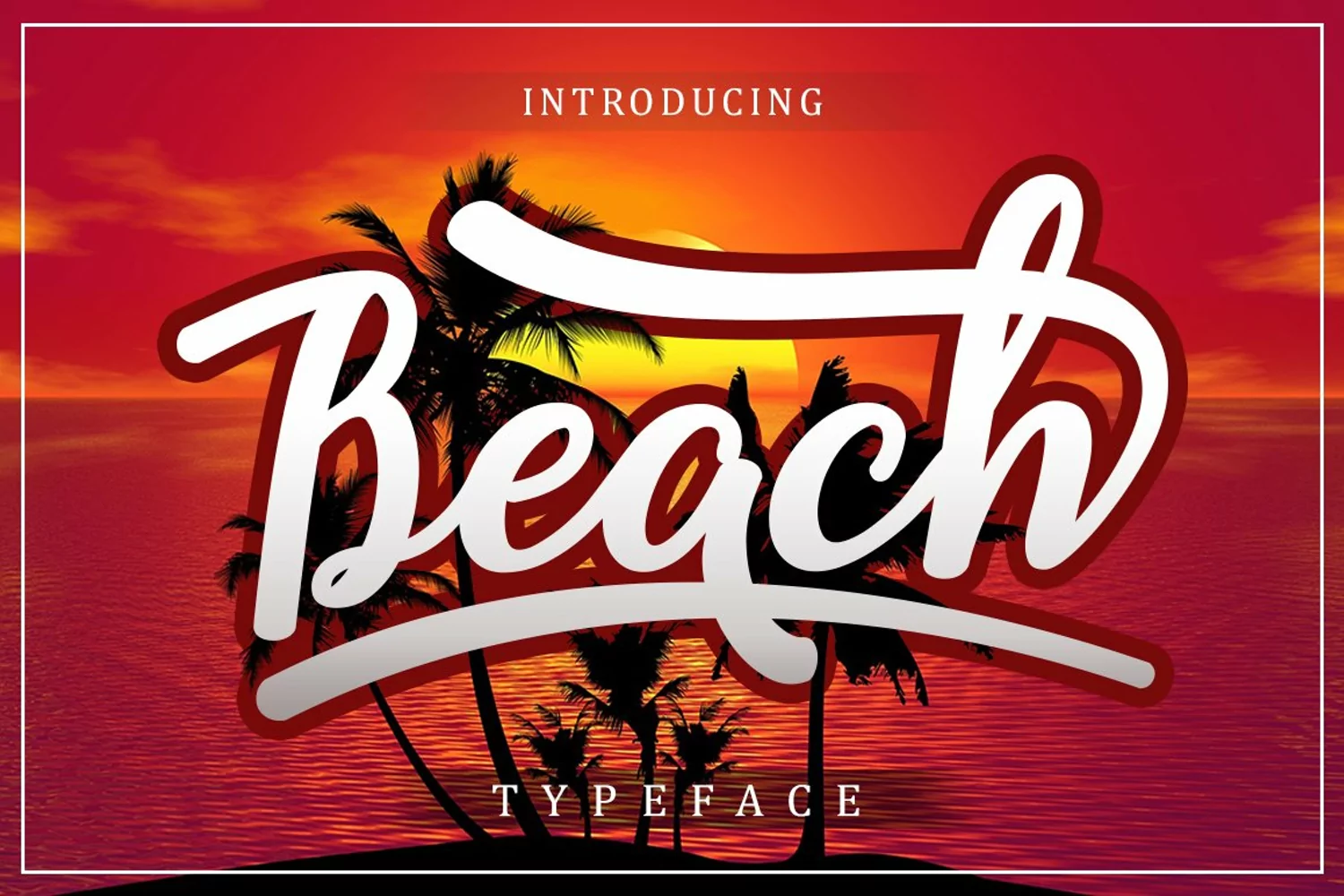
Beach is a great script font with a vintage feel to it. Bold characters make this font easy to read and the ideal choice for logos, branding, packaging, social media, apparel and more. Beach even has some alternate options so that you can get extra creative with your projects!